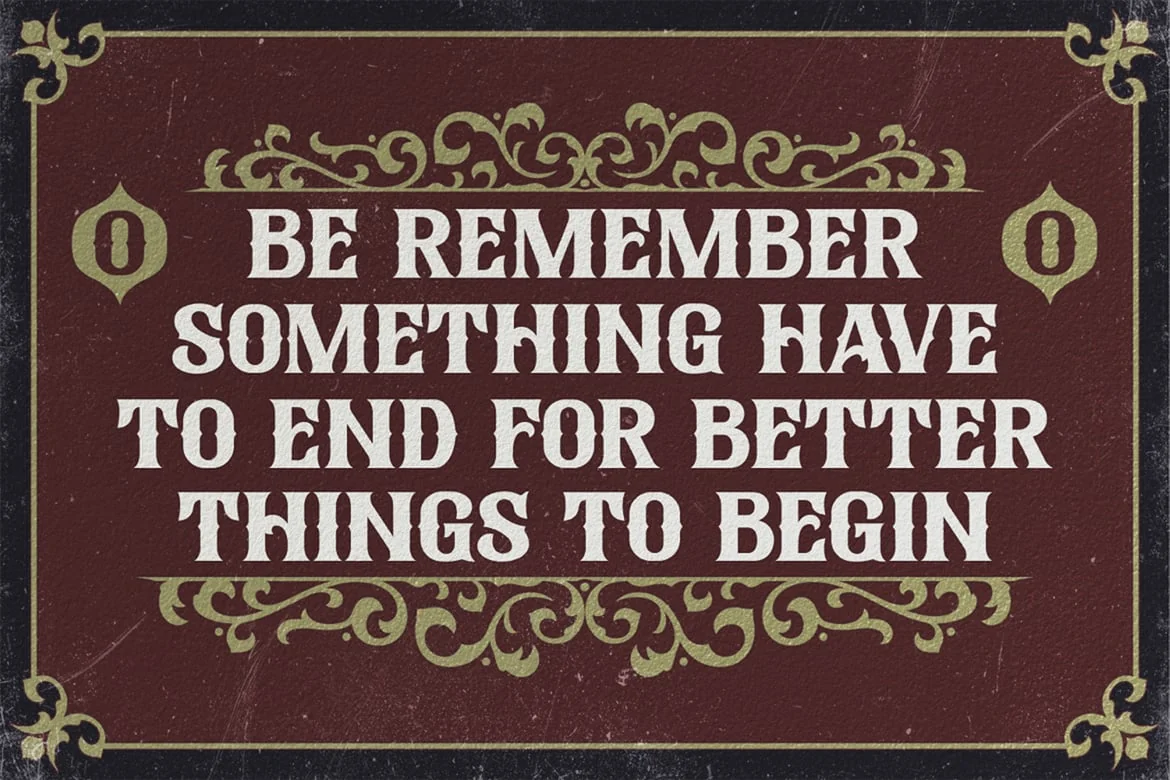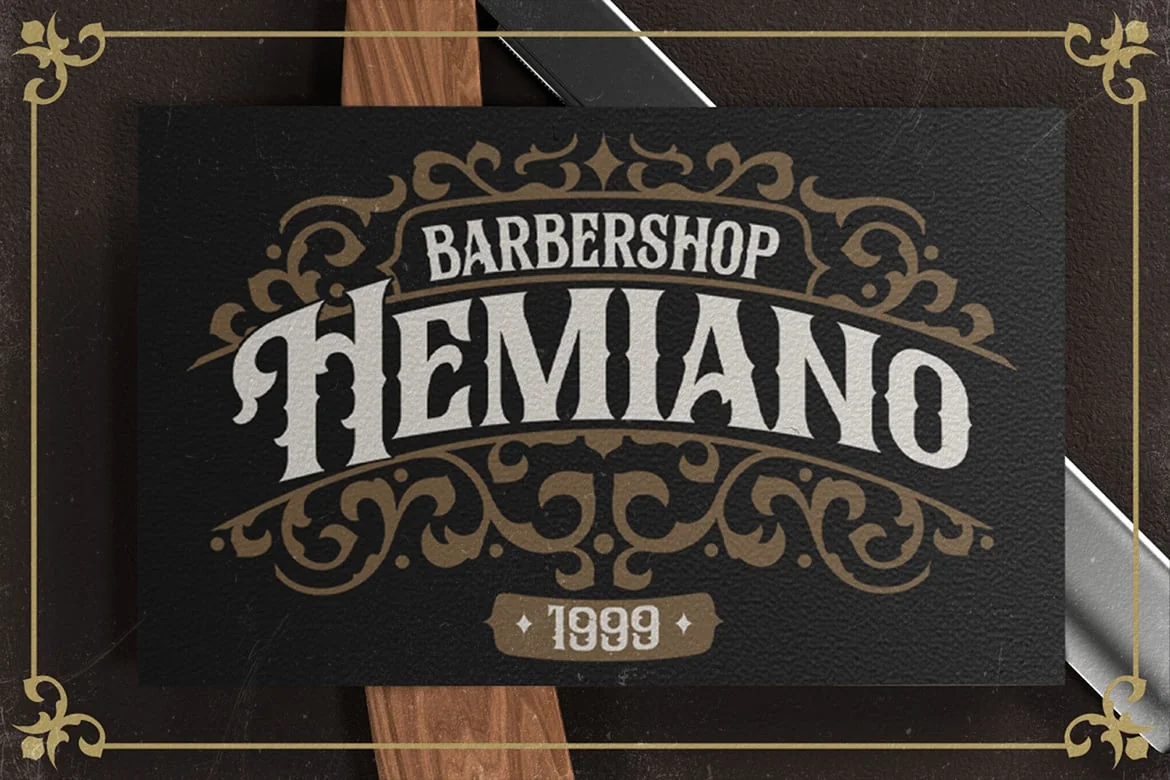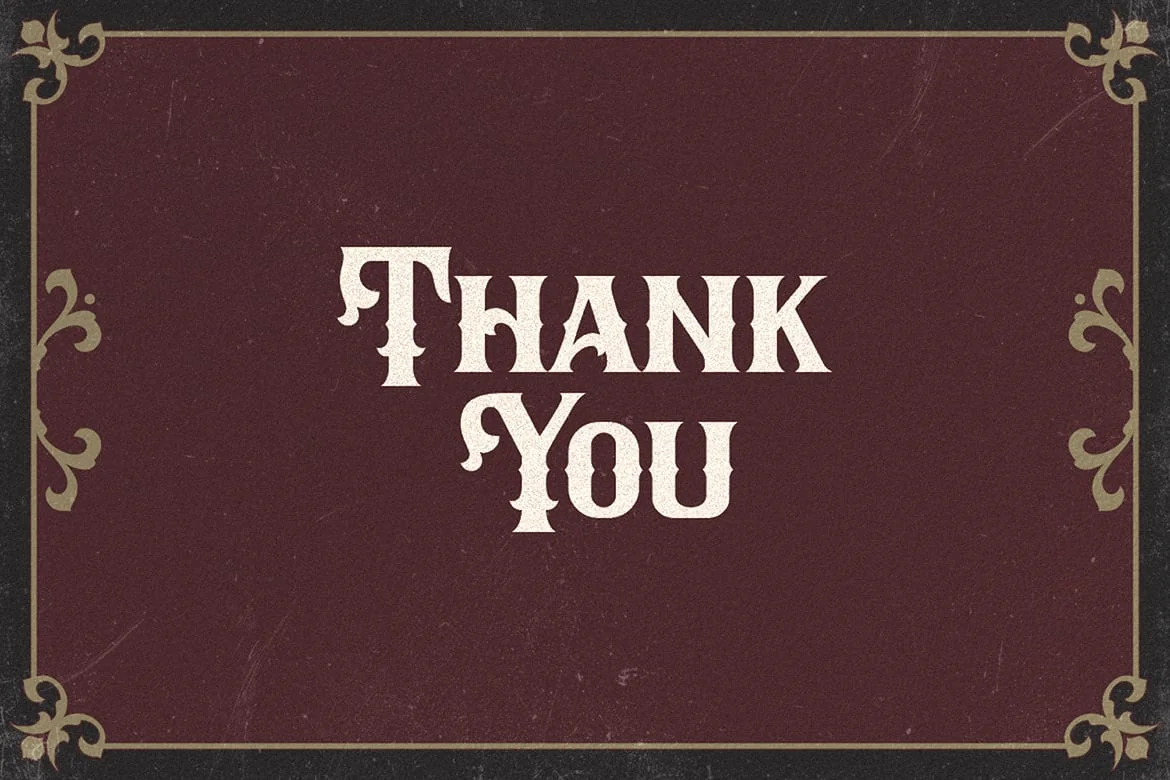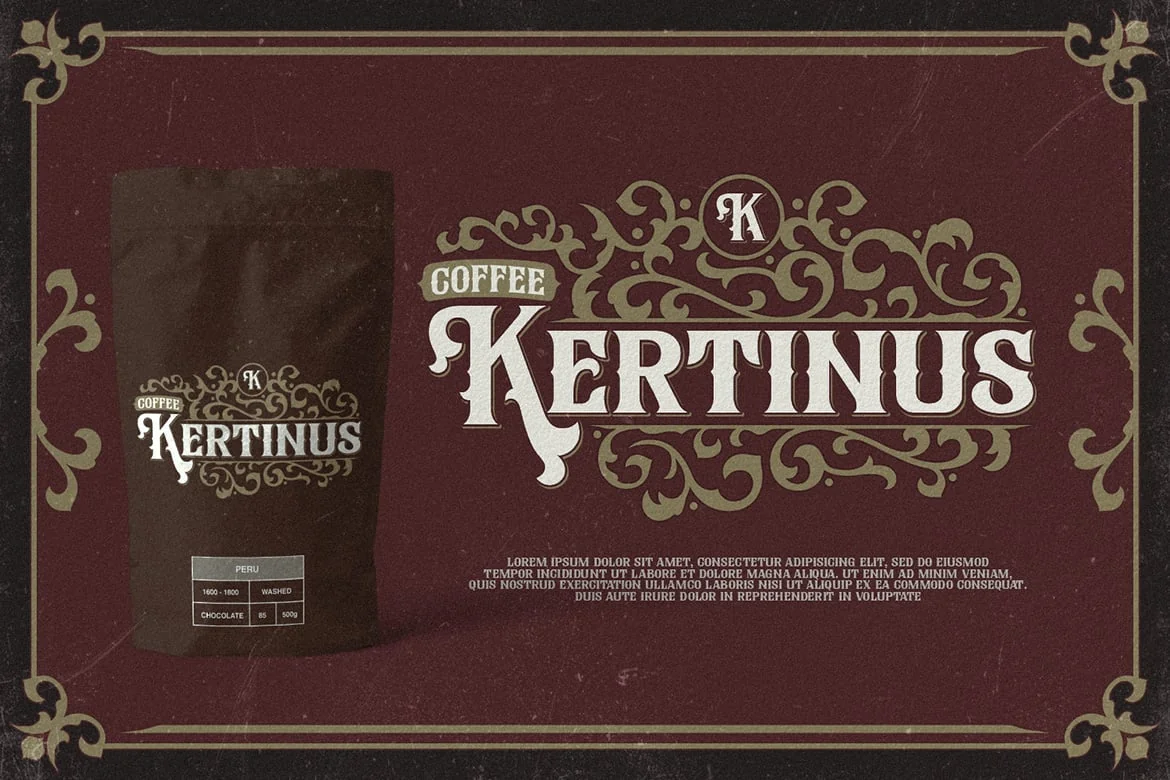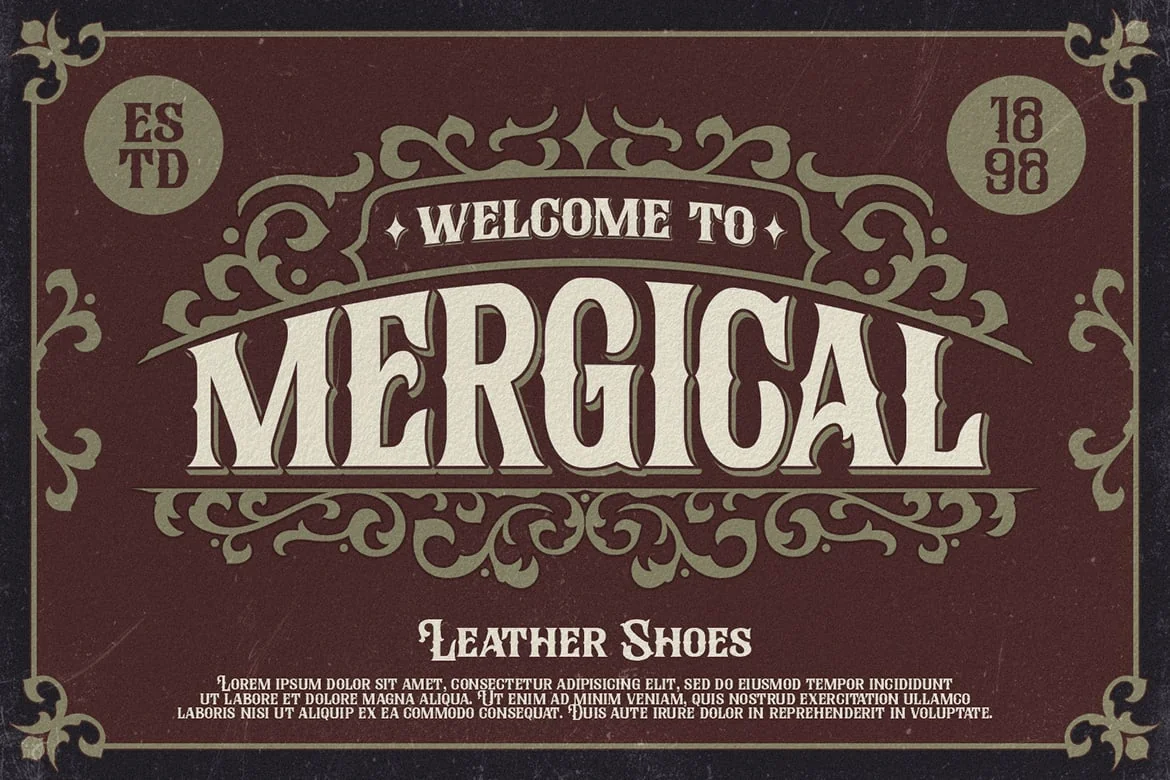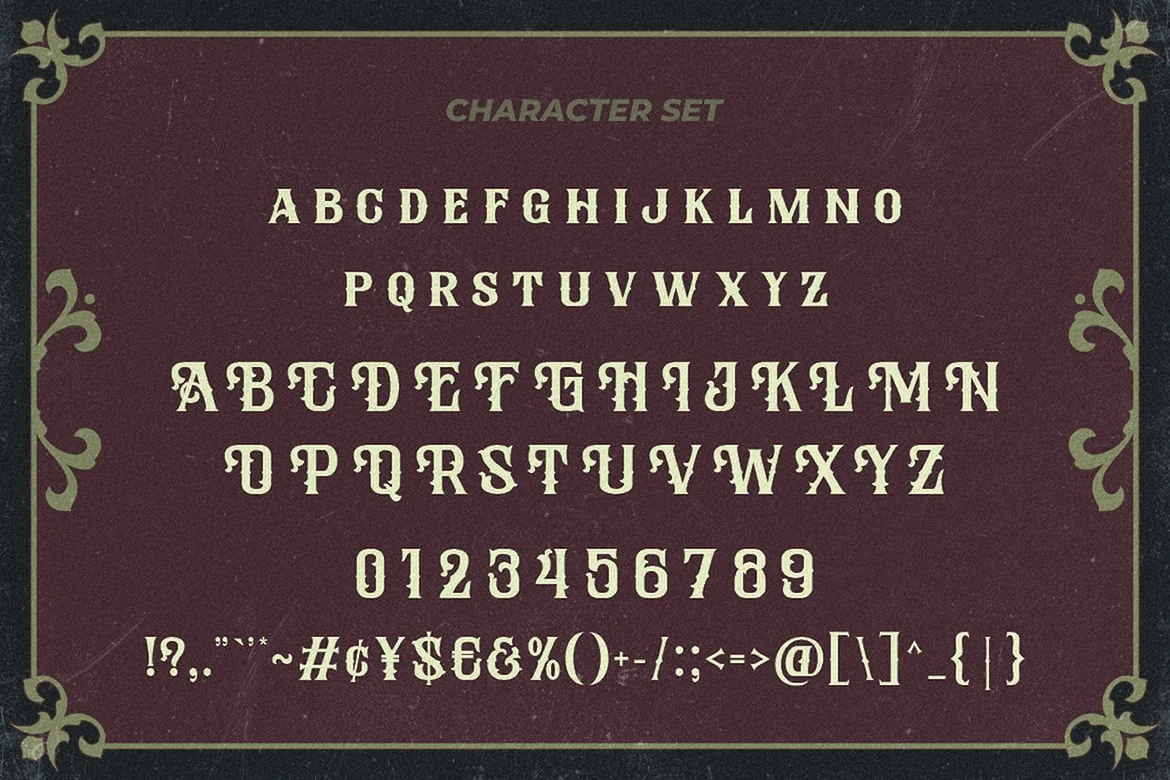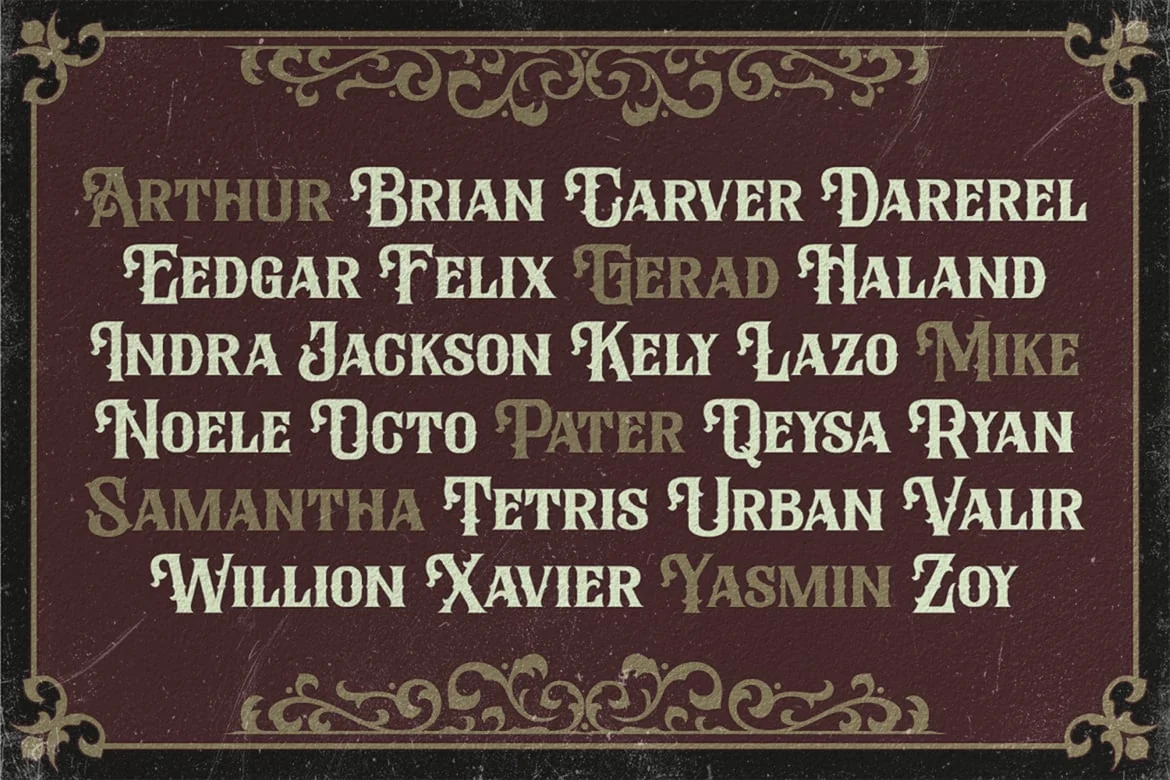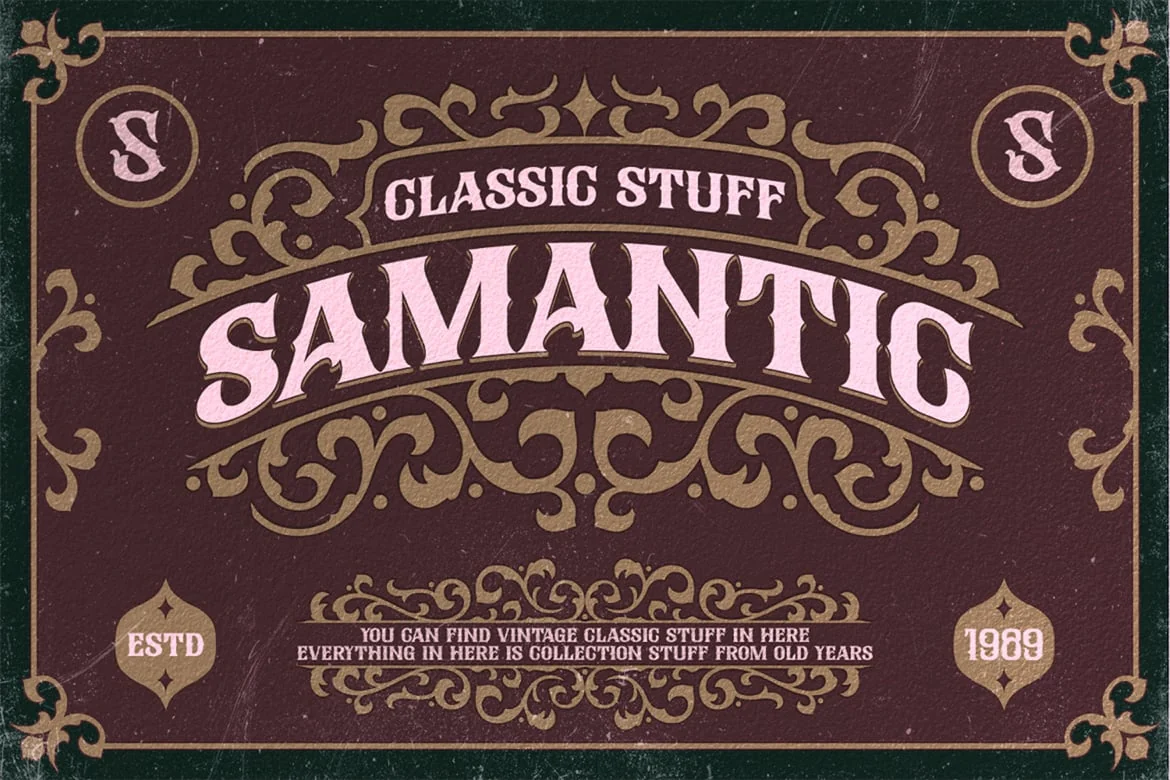
Alemoric Vintage Font
Alemoric is a Vintage typeface font, it will add an old-rustic charm to any design project. This collection of font is perfect for everything your project with vintage, retro, wild or organic style. It was made with the intention of being used for product Logo like a Pomade, Coffee, Barber shop or packaging label. It’s great also for Branding, Logo designs, Lettering, Logotype, Craft, Posters and much more. Comes with a full Uppercase, Lowercase, Numbers, Punctuation and standard Multilingual support it’s going to be a very usable addition to your project. We recommend using Adobe Illustrator or Photoshop. If you using another software, you can use the Font Book on your Mac or the Character Map on your windows to see and access alternate character like swash. Use it for any crafting project that requires a classic appearance!
- Alternate Character